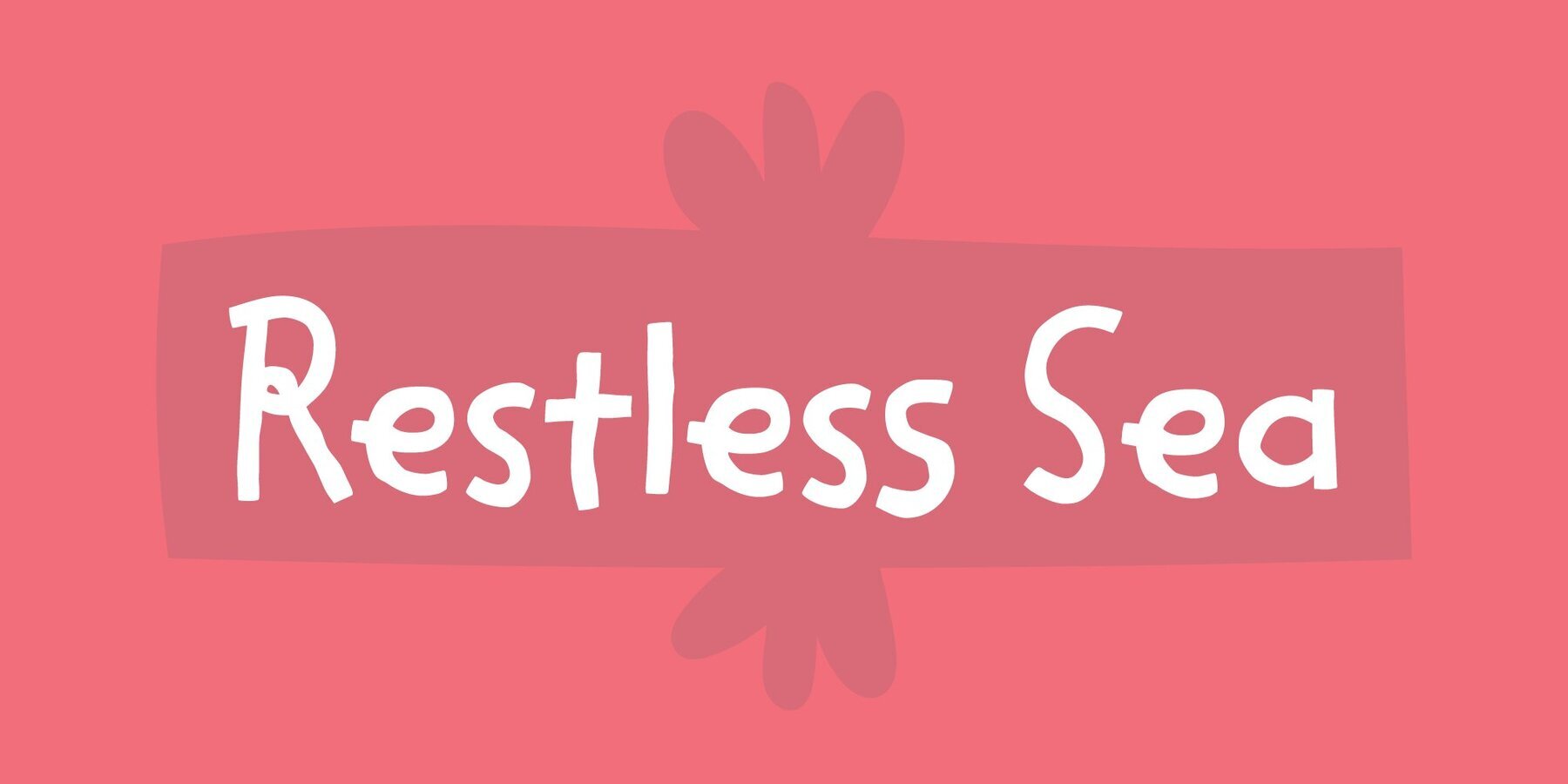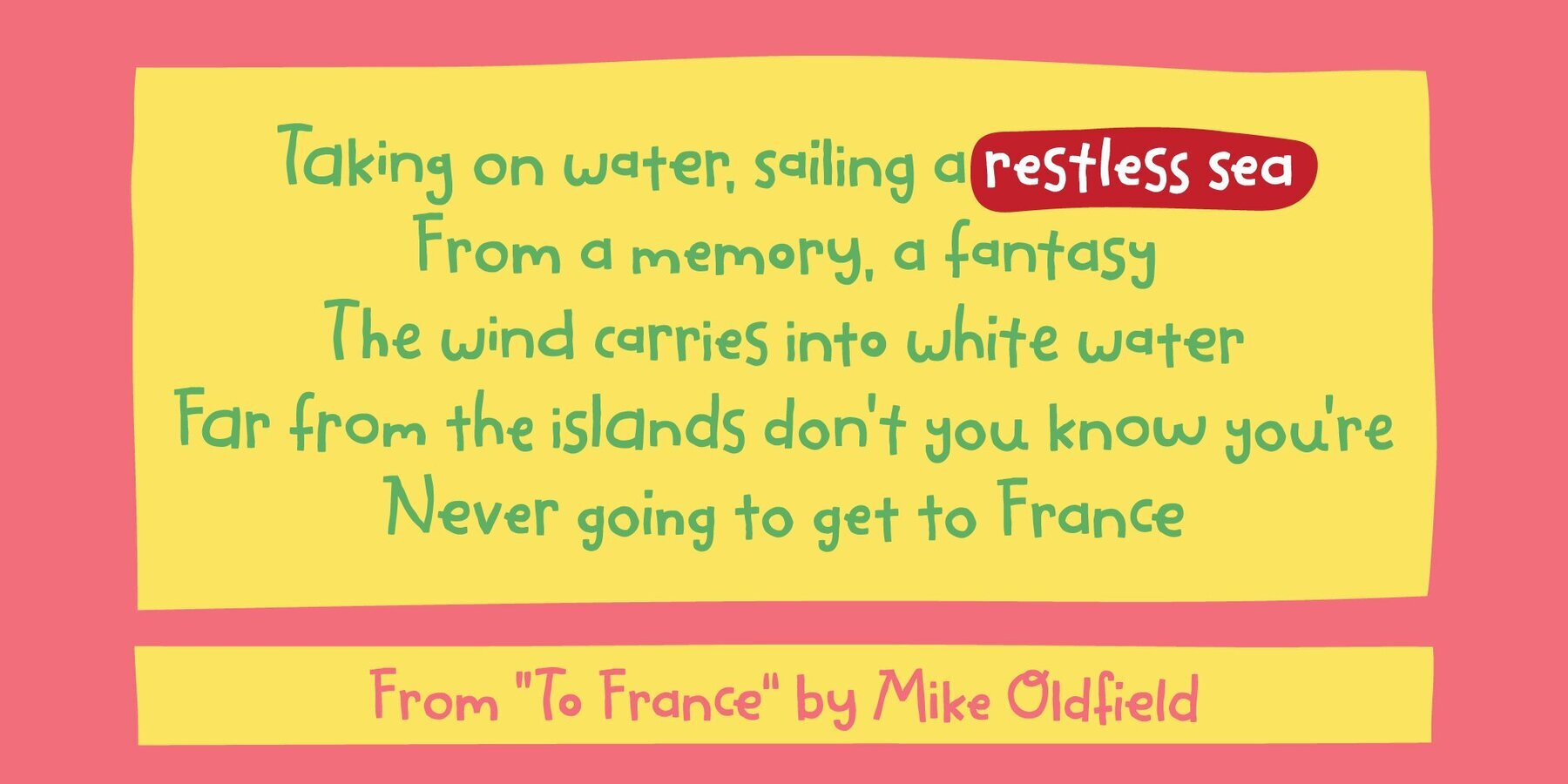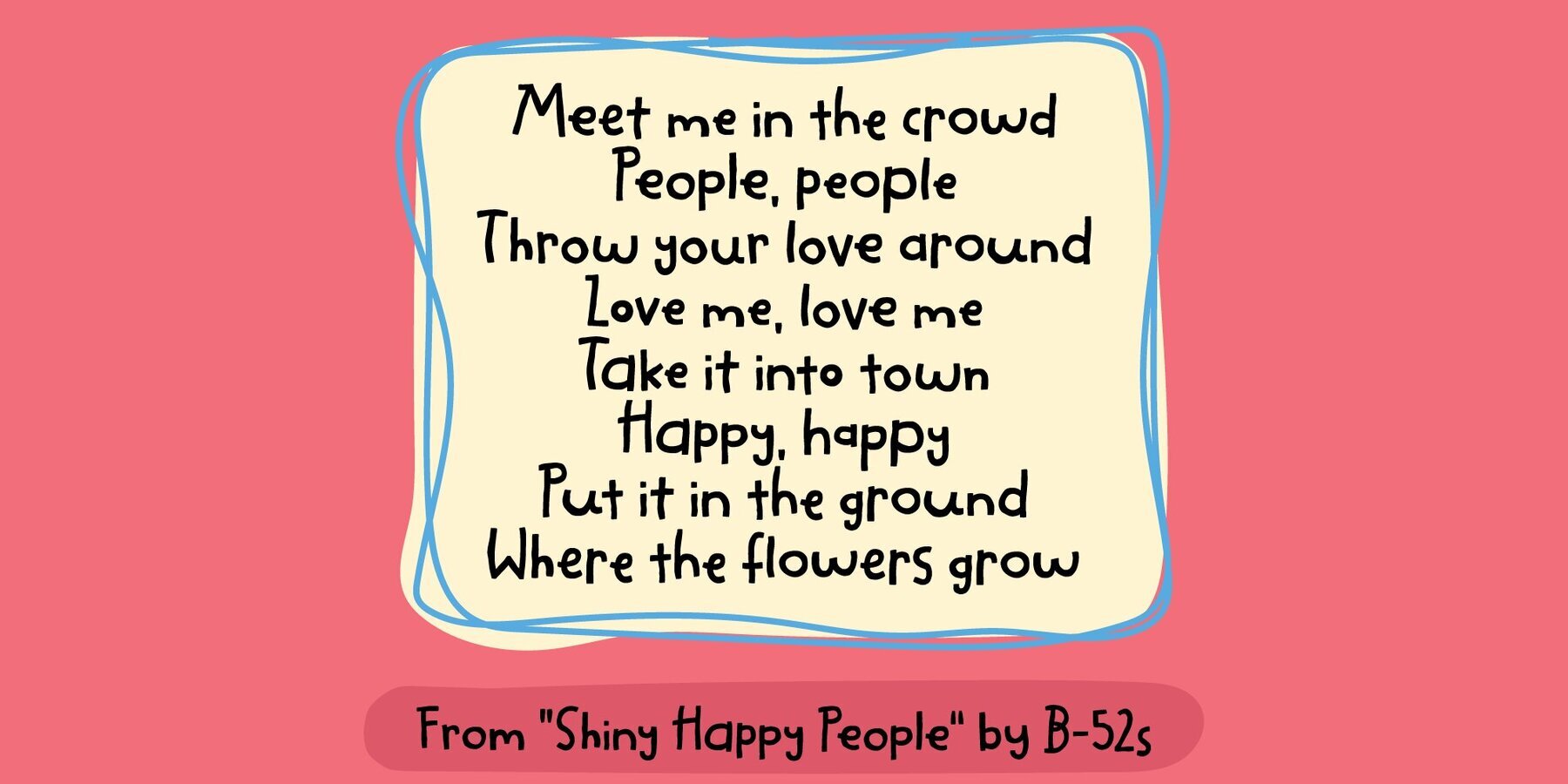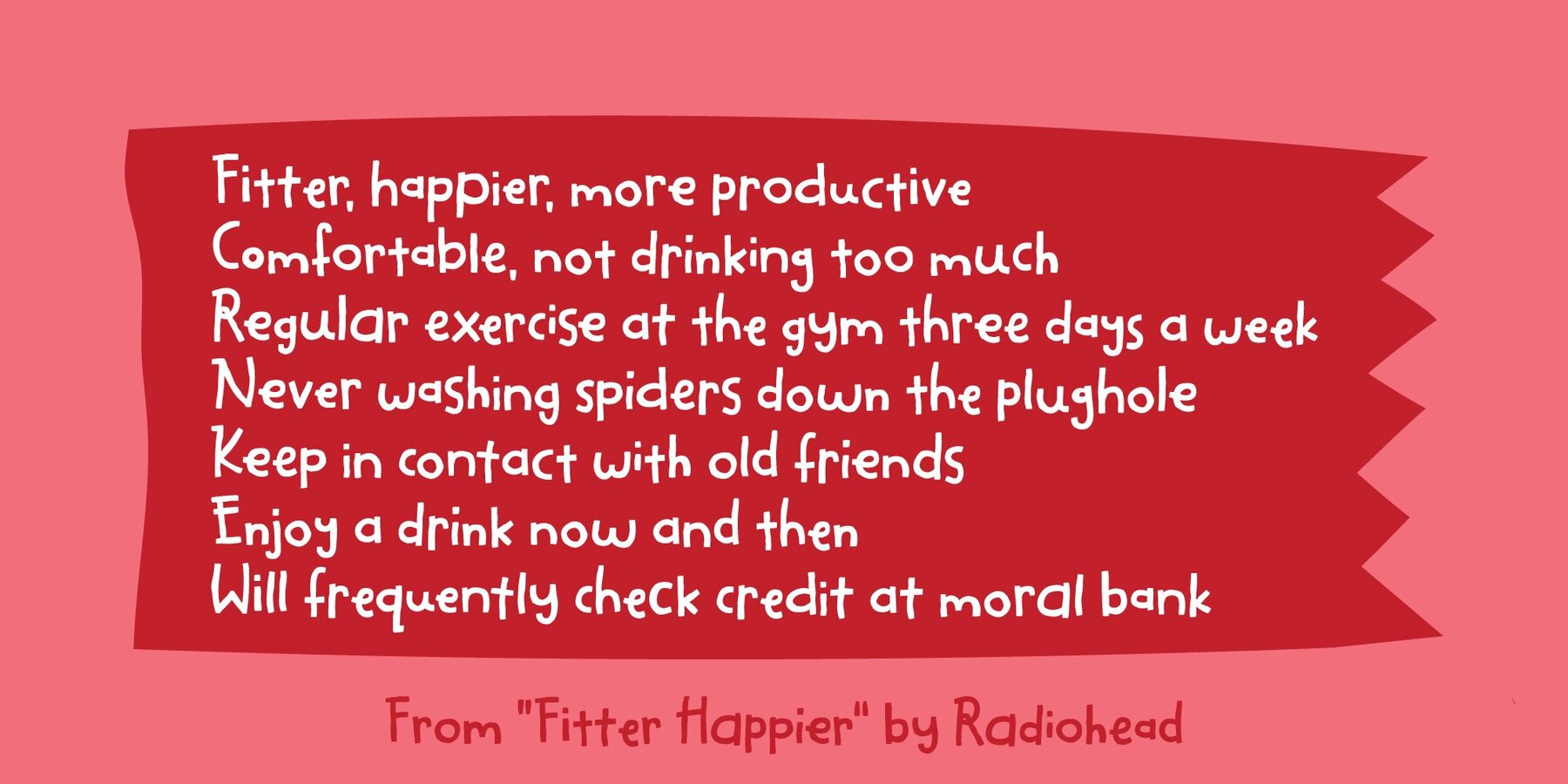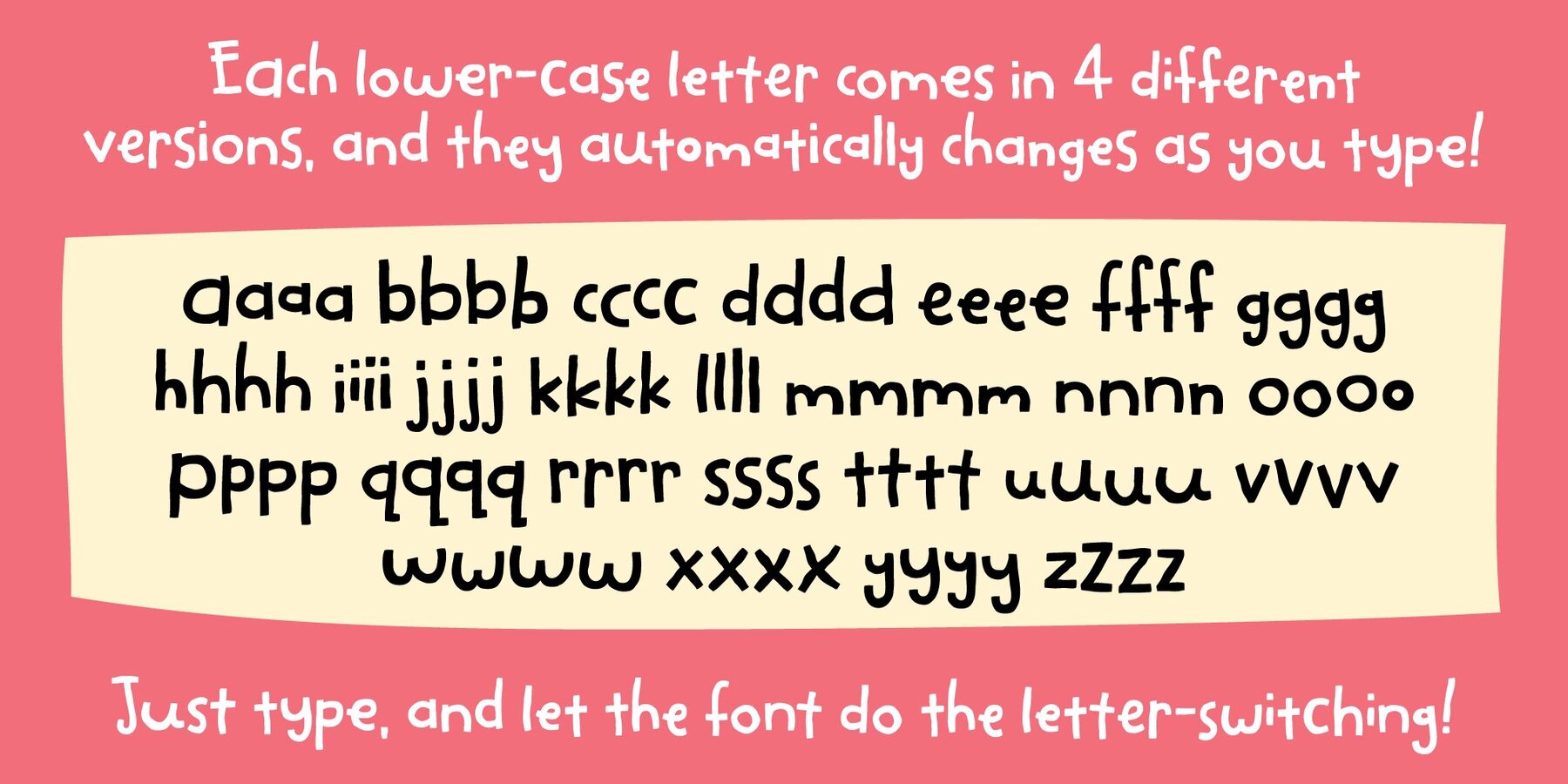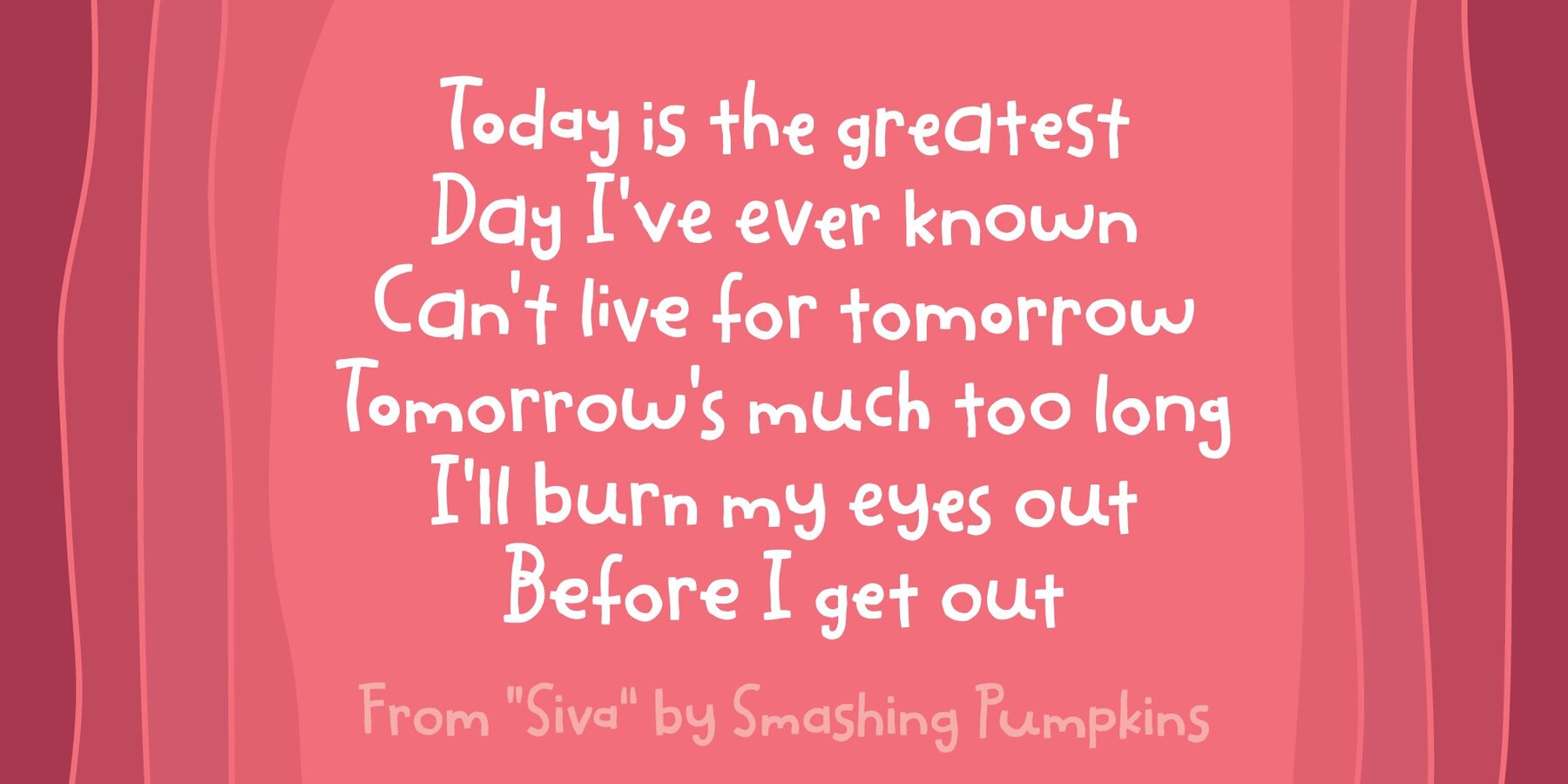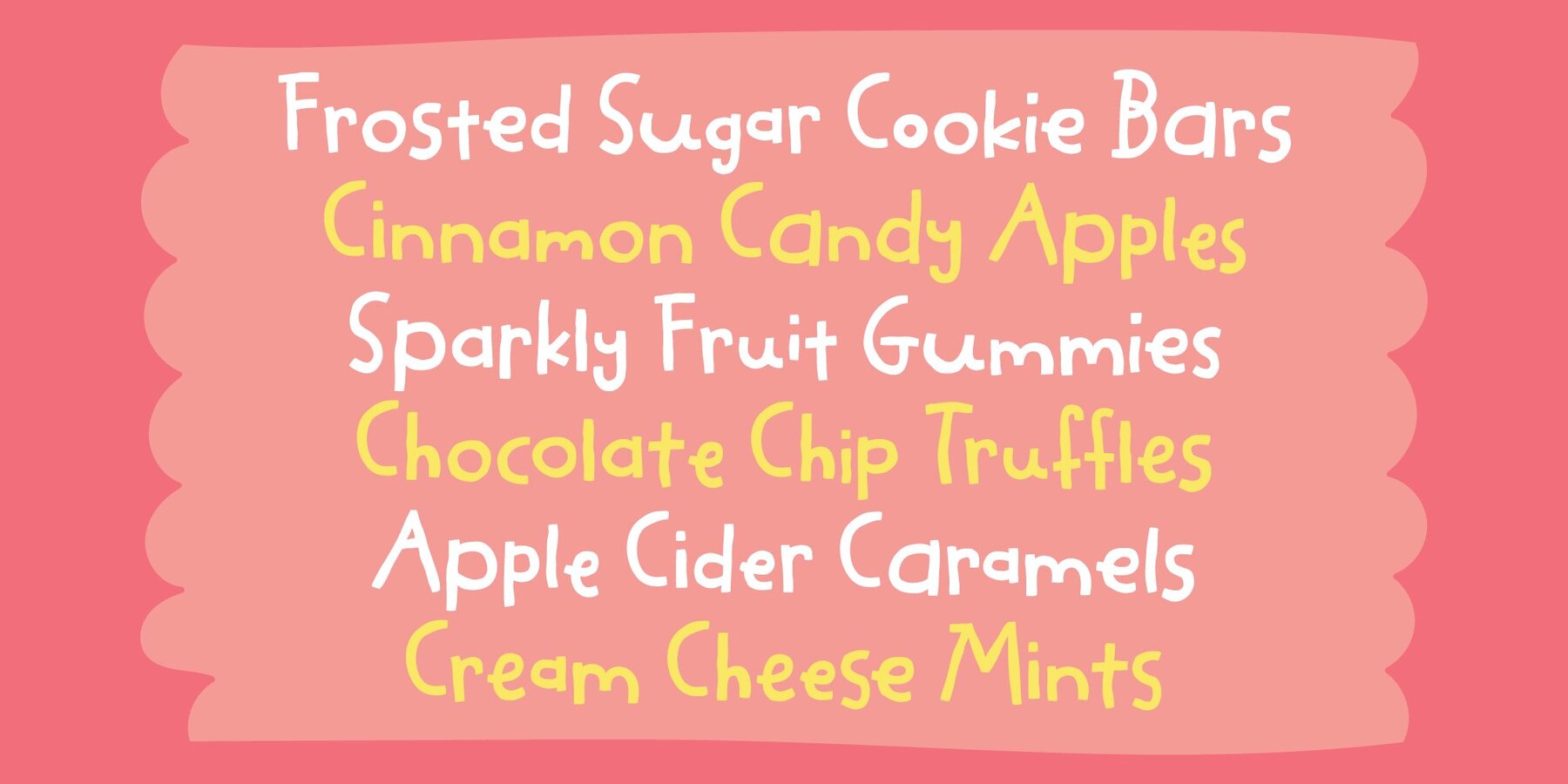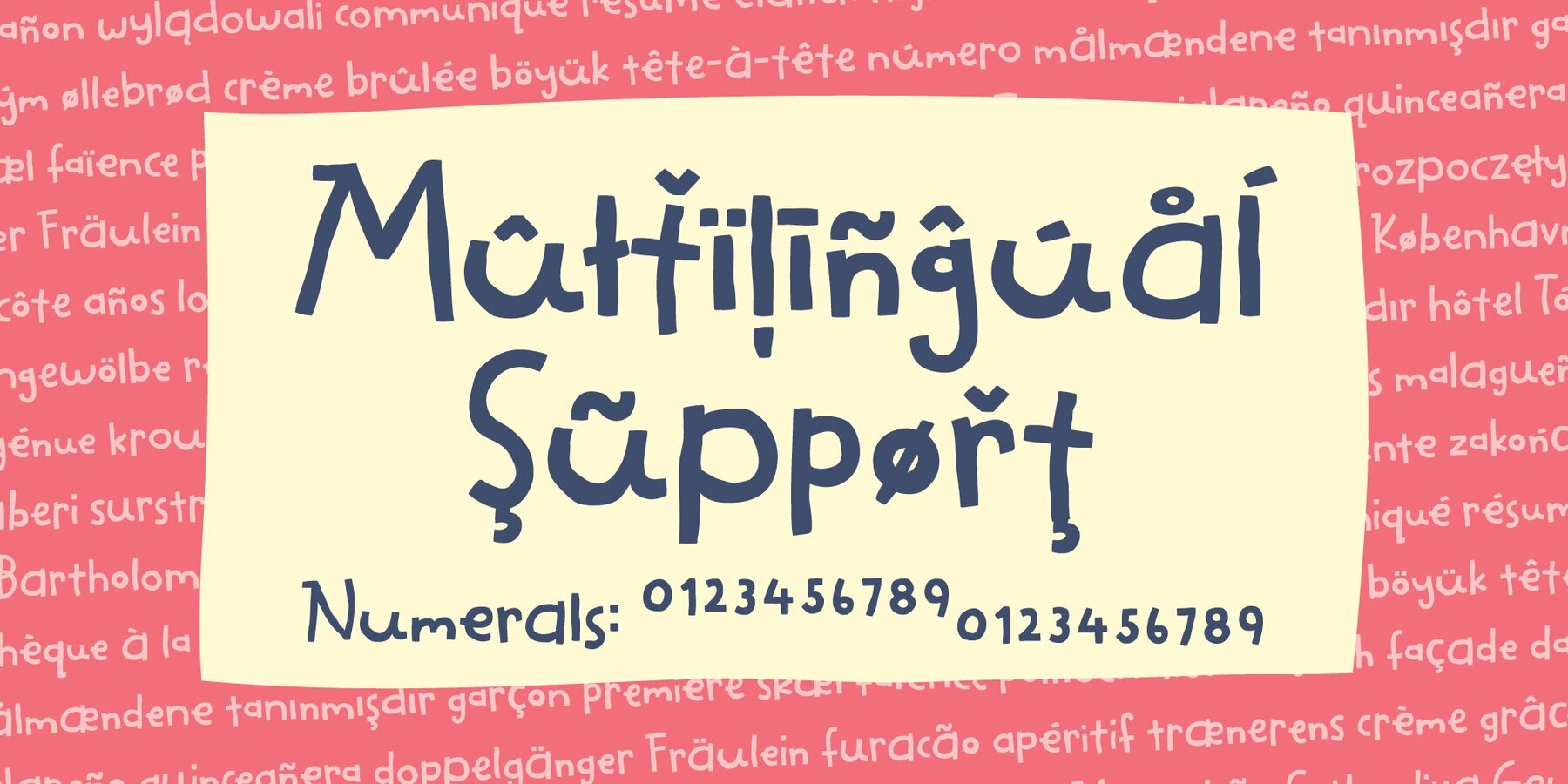
Restless Sea Font
Restless Sea offers a distinctly playful and welcoming aesthetic, featuring hand-drawn, rounded strokes with a naturally casual character. Each letter captures a relaxed, childlike style, reminiscent of thick paint markers or brush pens. The uneven baseline and subtle changes in letter height convey a sense of movement and warmth, making the font feel friendly and approachable. Whimsical curves and expressive letterforms—especially in characters like g, y, e, and r—bring a cartoon-inspired touch to creative projects. Restless Sea suits artistic designs that call for a personal, organic vibe without sacrificing legibility. With four alternate versions of every letter programmed to automatically change as you type, your designs gain genuine variety and an authentic, handmade feel.Restless Sea: Playful Hand-Drawn Font